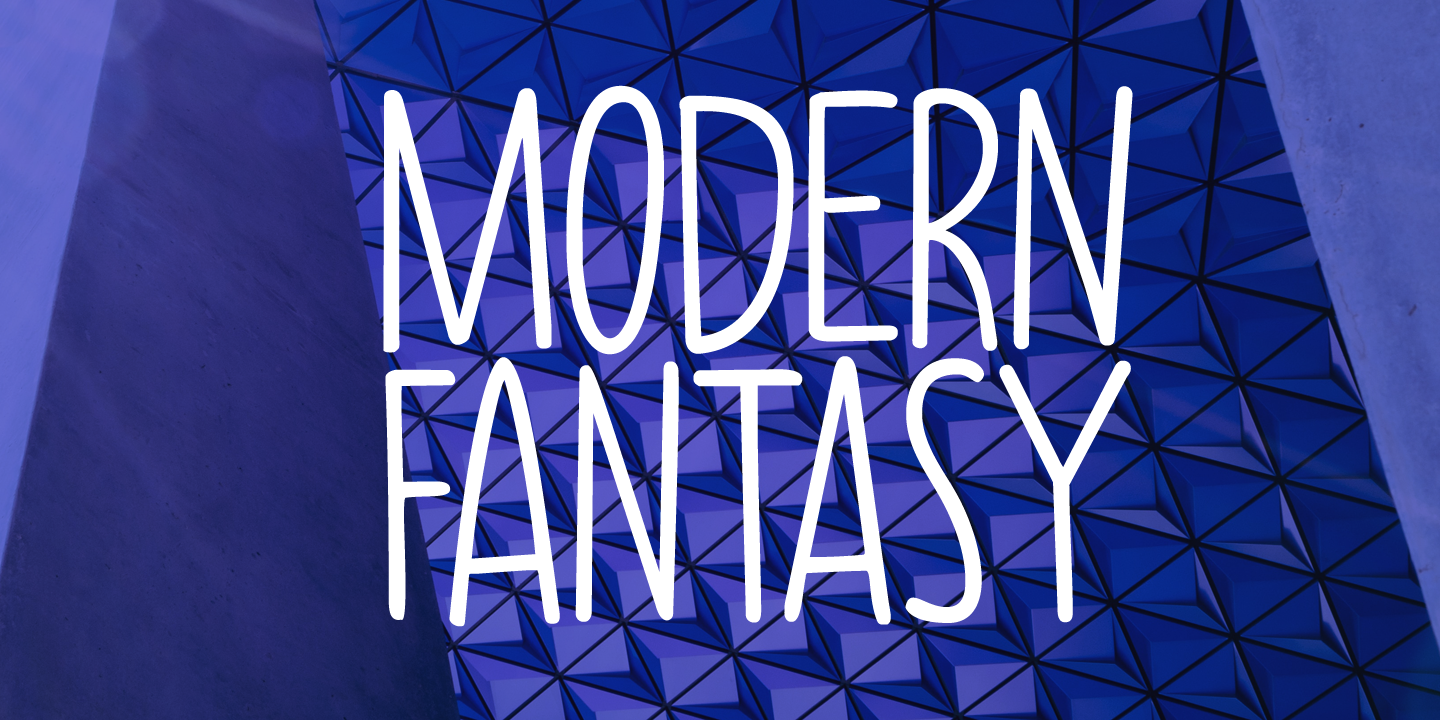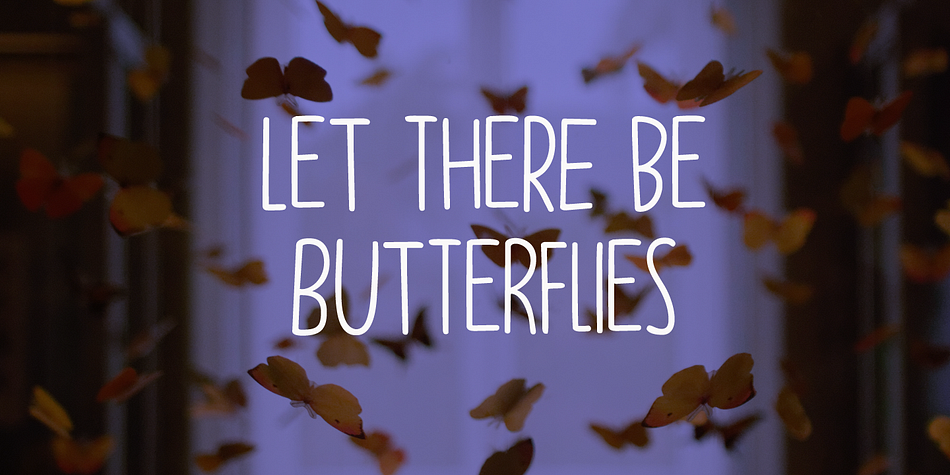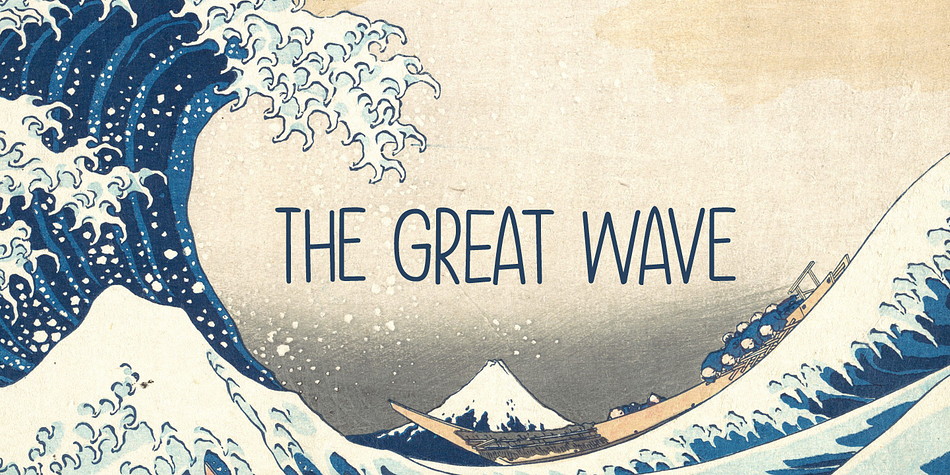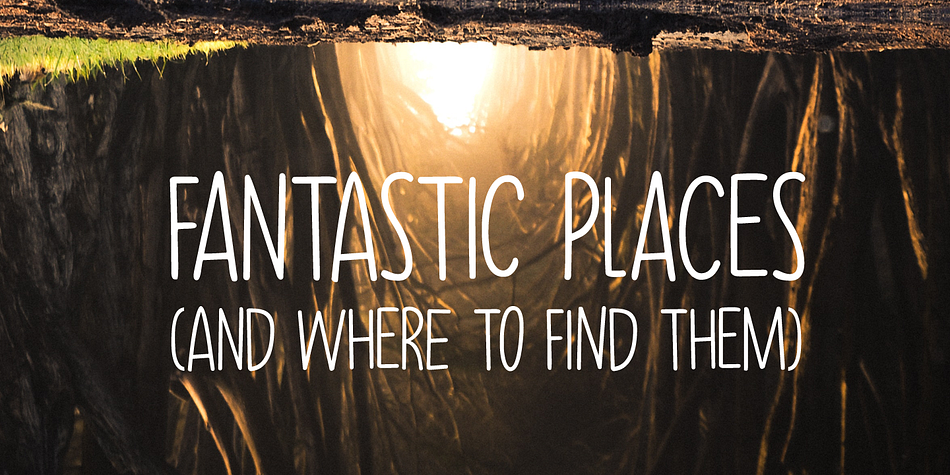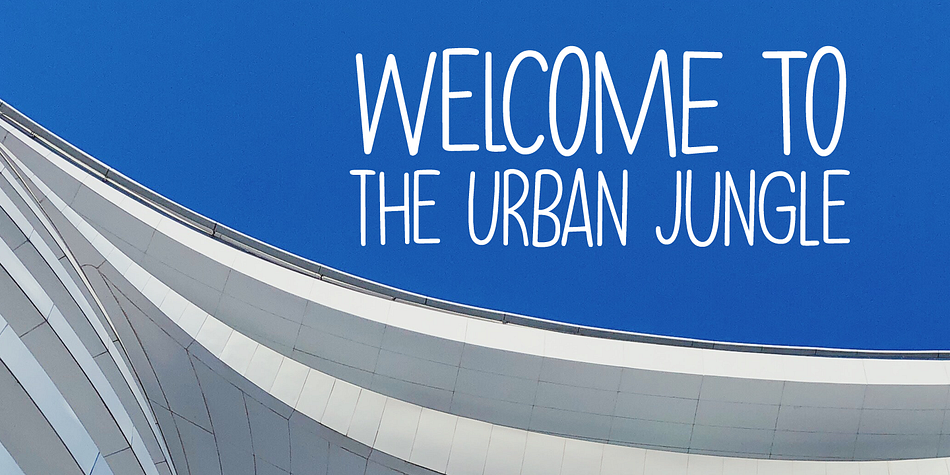
Designed by David Kerkhoff, Modern Fantasy is a hand drawn font family. This typeface has two styles and was published by Hanoded.
I have no idea why I named this font Modern Fantasy: it just popped up in my head and it stuck. I don’t consider myself to be ‘modern’ (but I’m certainly not old fashioned!), nor do I have particularly modern fantasies…
Modern Fantasy is an elegant all caps font: thin, tall and lovely.